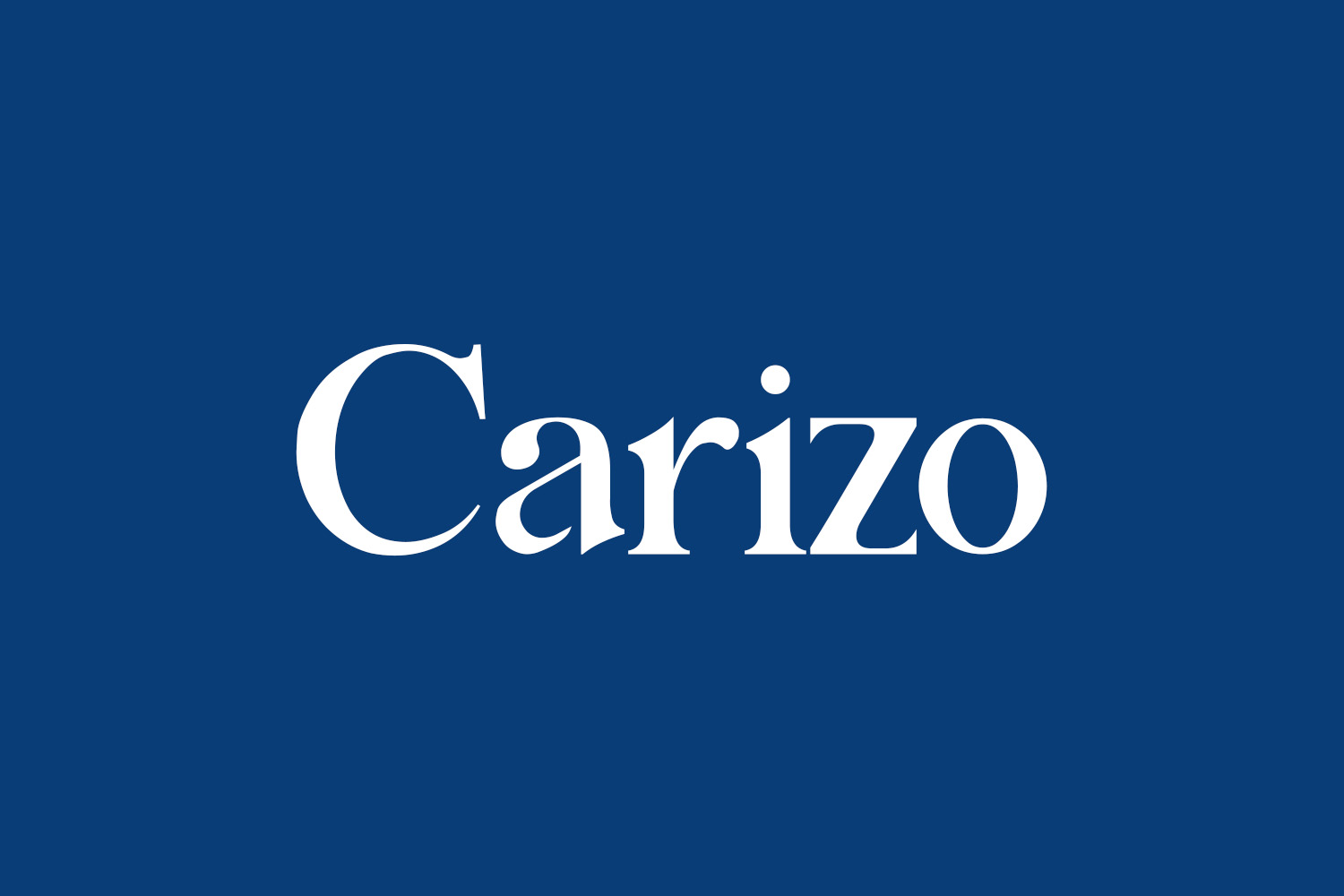
Carizo Free Font presents a dynamic duo of chic fonts – serif and script – meticulously crafted to harmonize seamlessly. Ideal for branding, logos, invitations, quotes, and beyond, Carizo adds a distinctive flair to any design concept. Elevate your creative vision with Carizo’s impeccable style and form, captivating your audience with unparalleled allure. Unleash the potential of your ideas with Carizo – where style meets substance. Carizo Free Font is free for personal use only. Please purchase the full version for commercial use.
Designed by Four Lines